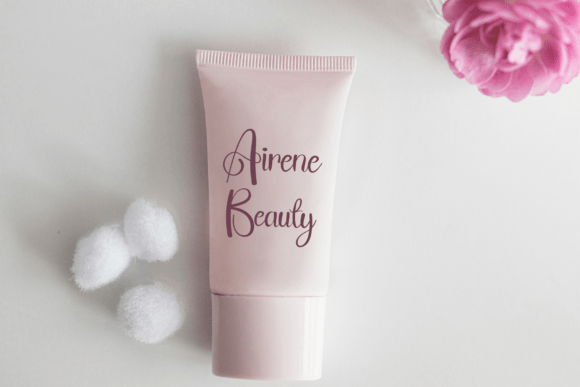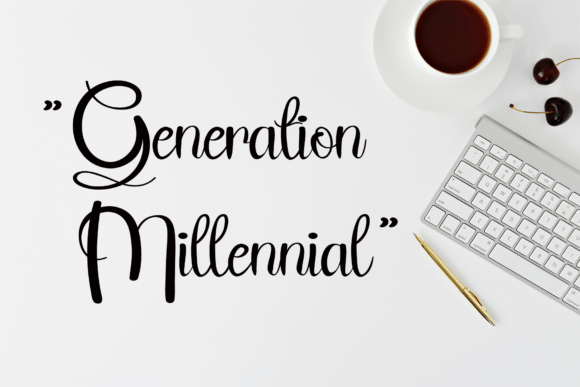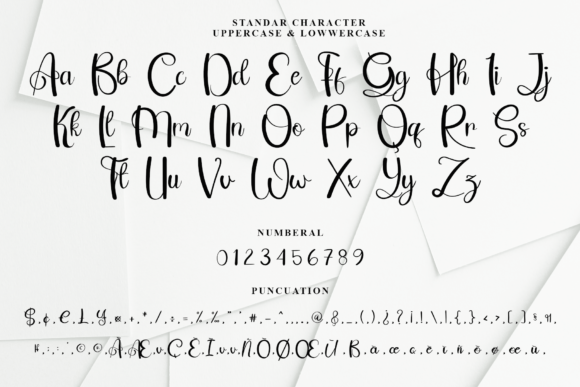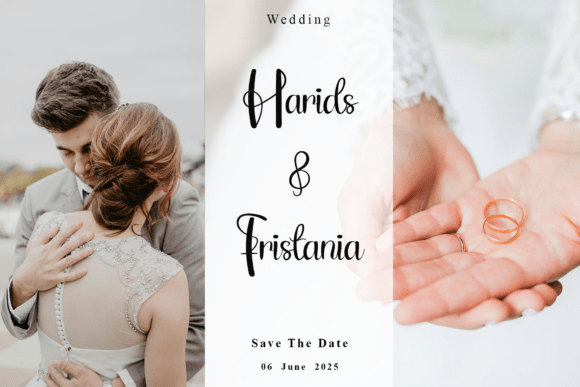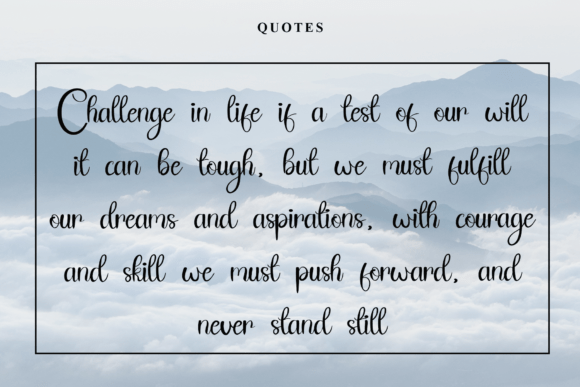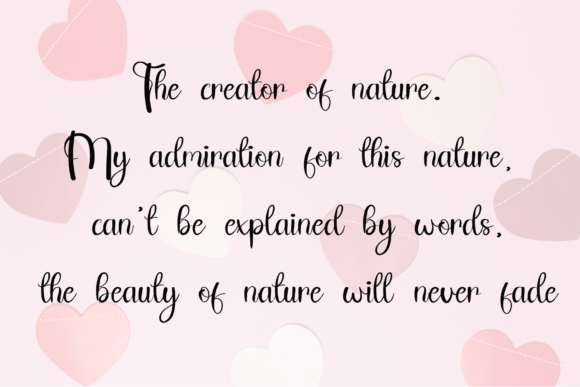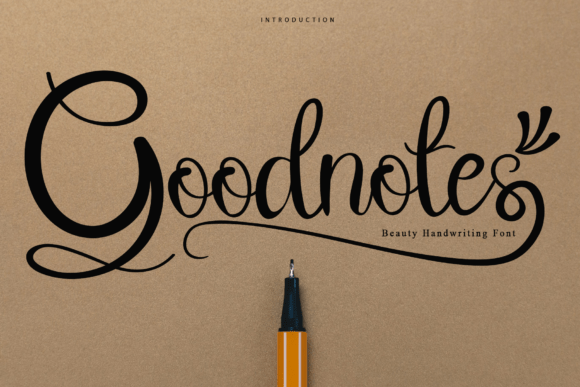
Discover the Elegance of Goodnotes Font: A Thin Lettered and Simple Script Font
Are you a designer or crafter looking for a font that exudes elegance and sophistication? Look no further than the Goodnotes Font, a thin lettered and simple script font that is sure to capture your heart. With its ravishing style, Goodnotes Font is perfect for creating stunning wedding invitations, beautiful stationary art, eye-catching social media posts, and much more.
What is Goodnotes Font?
Goodnotes Font is a modern script font that features thin, delicate letters and a simple, yet elegant design. Its subtle curves and refined lines make it an ideal choice for designs that require a touch of sophistication and class. Whether you’re creating a wedding invitation, a social media post, or a piece of stationary art, Goodnotes Font is sure to add a level of refinement and poise to your design.
Characteristics of Goodnotes Font
So, what makes Goodnotes Font so special? Here are just a few of its key characteristics:
- Thin lettered: Goodnotes Font features thin, delicate letters that are perfect for creating elegant and refined designs.
- Simple script: The font’s simple script design makes it easy to read and versatile enough to use in a variety of design applications.
- Elegant curves: Goodnotes Font features subtle curves and refined lines that add a touch of sophistication and class to any design.
Uses for Goodnotes Font
Goodnotes Font is a versatile font that can be used in a variety of design applications. Here are just a few ideas to get you started:
- Wedding invitations: Create stunning wedding invitations that set the tone for a beautiful and elegant wedding.
- Stationary art: Use Goodnotes Font to create beautiful pieces of stationary art, such as greeting cards, thank you cards, and more.
- Social media posts: Add a touch of elegance and sophistication to your social media posts with Goodnotes Font.
- Branding: Use Goodnotes Font to create a cohesive brand identity that exudes elegance and refinement.
Tips for Using Goodnotes Font
Here are a few tips for using Goodnotes Font in your designs:
- Pair with bold fonts: Pair Goodnotes Font with bold fonts to create a striking contrast that adds visual interest to your design.
- Use in combination with images: Use Goodnotes Font in combination with beautiful images to create a stunning design that tells a story.
- Experiment with colors: Experiment with different colors and textures to add depth and interest to your design.
In conclusion, Goodnotes Font is a thin lettered and simple script font that is sure to capture your heart. With its elegant curves, refined lines, and versatile design, Goodnotes Font is perfect for creating stunning wedding invitations, beautiful stationary art, eye-catching social media posts, and much more. Whether you’re a designer or crafter, Goodnotes Font is a must-have font that is sure to add a touch of sophistication and class to your designs.